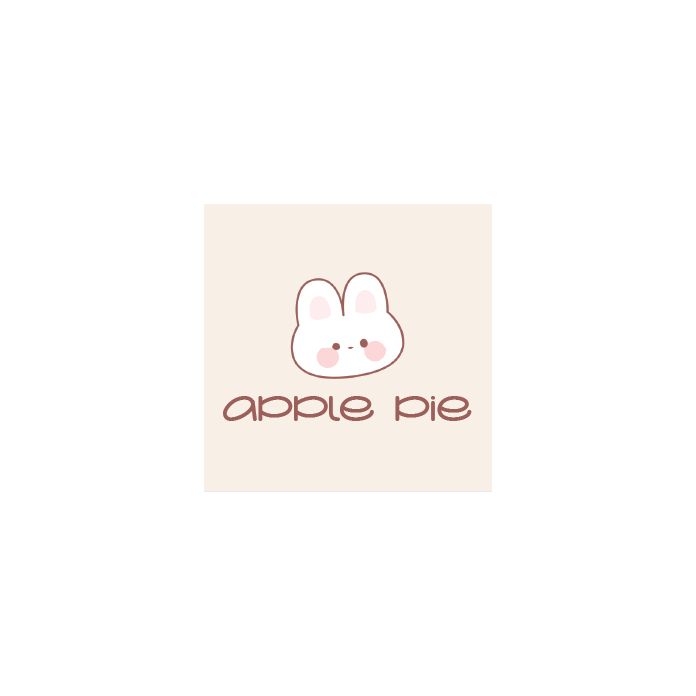
This is such an adorable font for your craft needs. It is all one height so it will flow nicely on almost any project. It is an unicase font and is made up from a combination of upper and lower case. Includes number and some basic punctuation.